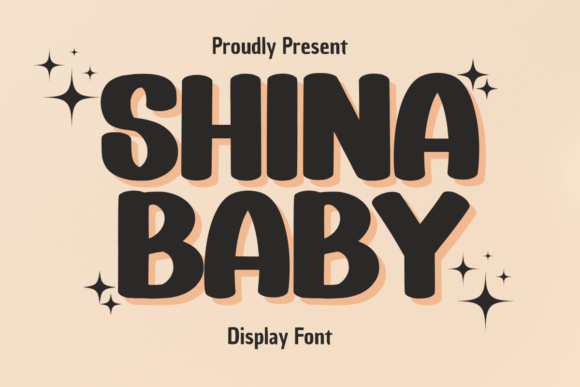
Introducing Shina Baby Font, the perfect addition to your font collection! Created by SiapGraph, this fun and quirky display font is guaranteed to captivate your audience and add a touch of retro charm to any project.
With its unique design and playful personality, Shina Baby Font is a must-have for anyone seeking to create eye-catching and memorable designs. Whether you're working on a vintage poster, a funky logo, or a nostalgic website, this font will instantly transport your audience back in time.
One of the greatest strengths of Shina Baby Font is its versatility. It seamlessly blends with various design styles, making it suitable for a wide range of projects. From whimsical illustrations to bold headlines, this font can do it all. Its adaptability ensures that you'll never be limited in your creative endeavors.
But what truly sets Shina Baby Font apart is its ability to evoke emotions and create a connection with your audience. Its retro charm triggers a sense of nostalgia, evoking memories of carefree days and simpler times. This emotional connection can be a powerful tool in marketing and branding, as it helps create a lasting impression on your customers.
Imagine the impact of using Shina Baby Font in your next e-commerce campaign. Whether you're selling vintage clothing or nostalgic home decor, this font will instantly transport your customers back to an era they long for. It's the perfect way to engage with your audience on an emotional level and drive sales.
In conclusion, Shina Baby Font is not just a font; it's a journey through time. Its whimsical design, versatility, and ability to evoke emotions make it an invaluable asset to any designer or marketer. So why wait? Add this captivating font to your collection and unlock a world of creative possibilities. Download Shina Baby Font now and let your creativity run wild!